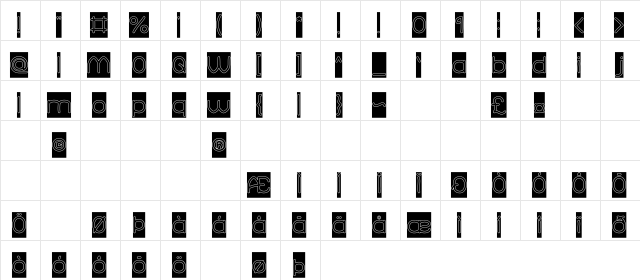
Soup Recipe-Hollow-Inverse Regular
Design Context for Soup Recipe-Hollow-Inverse Typeface
Soup Recipe-Hollow-Inverse is a composed and adaptable typeface that performs quietly and consistently across a wide range of design contexts.